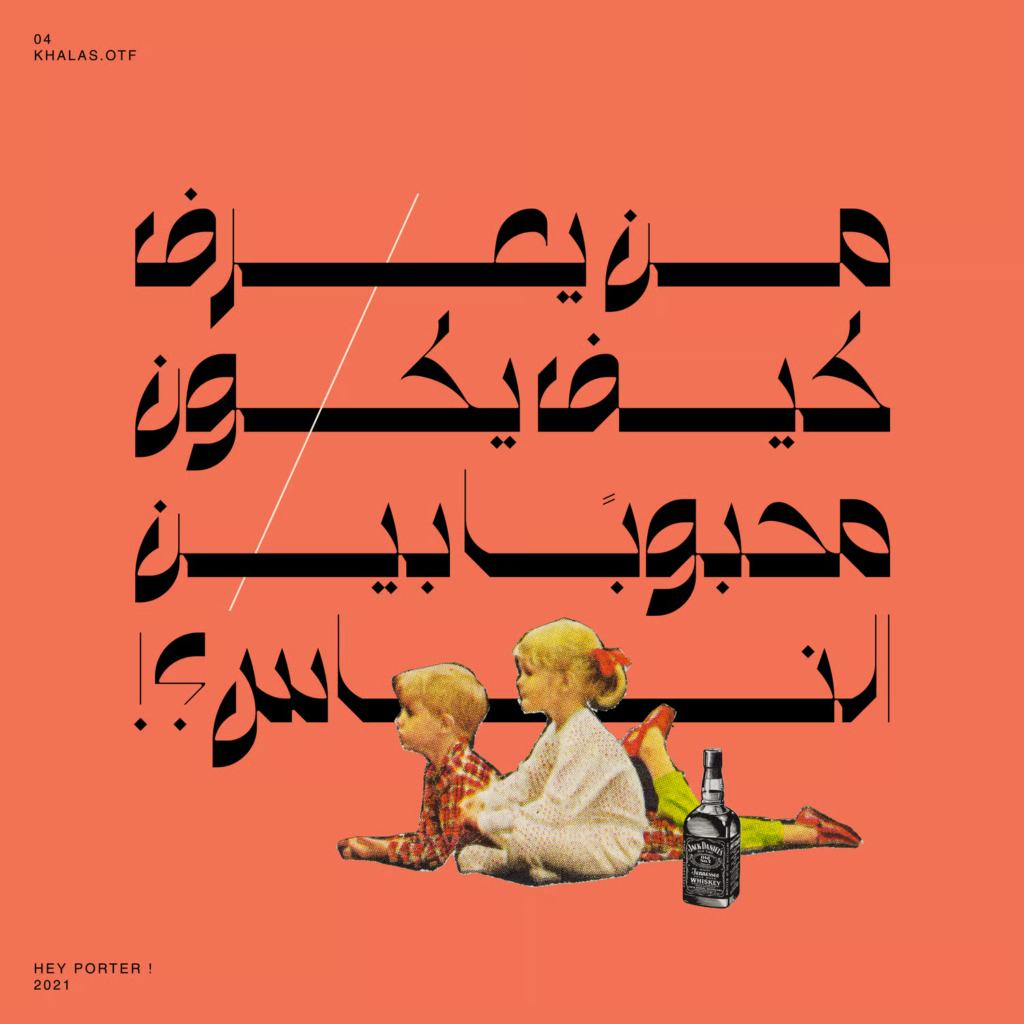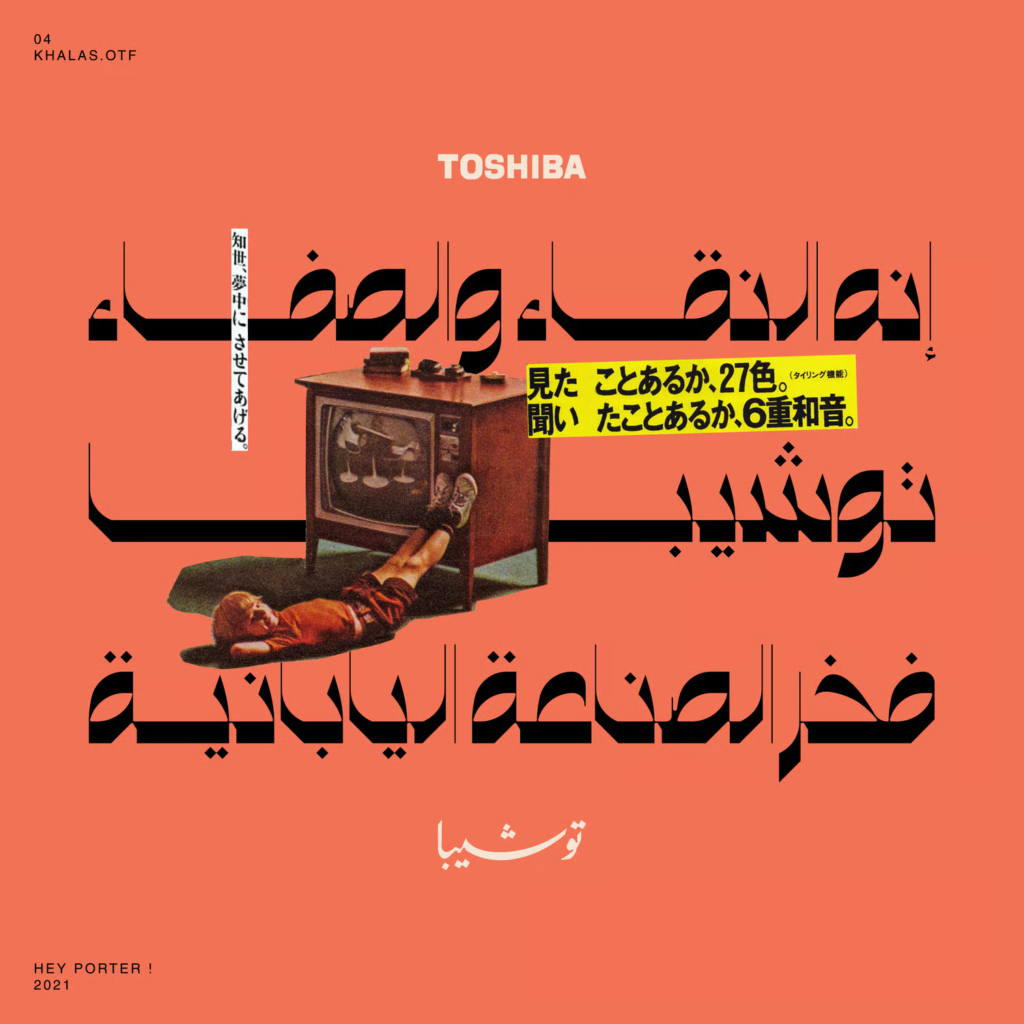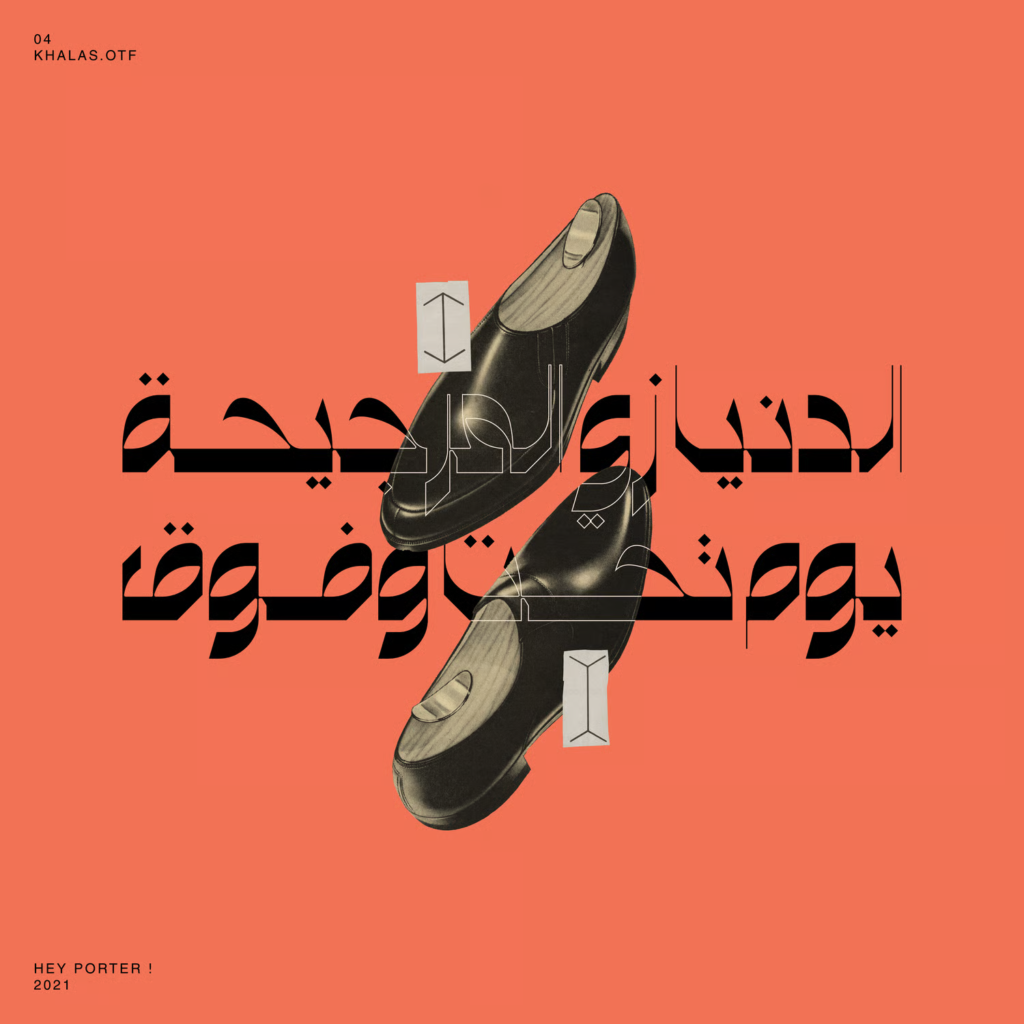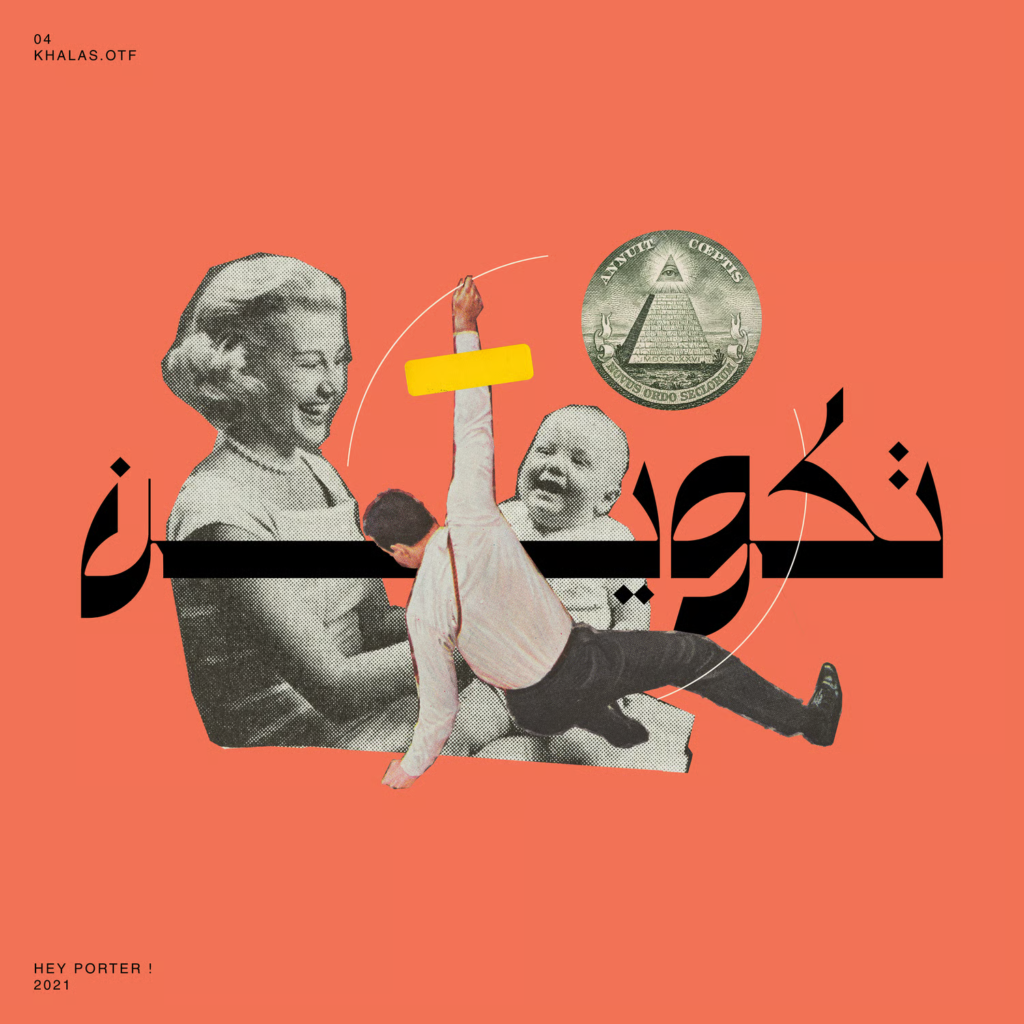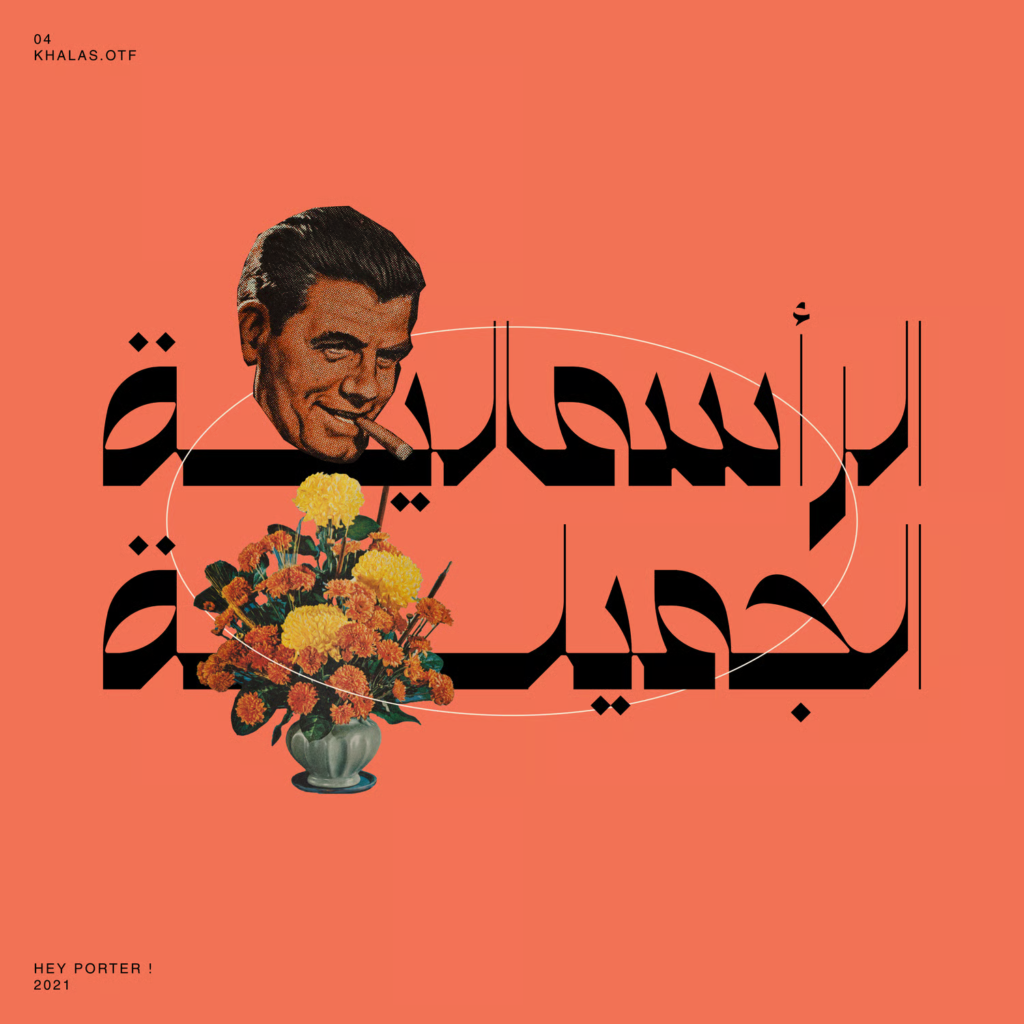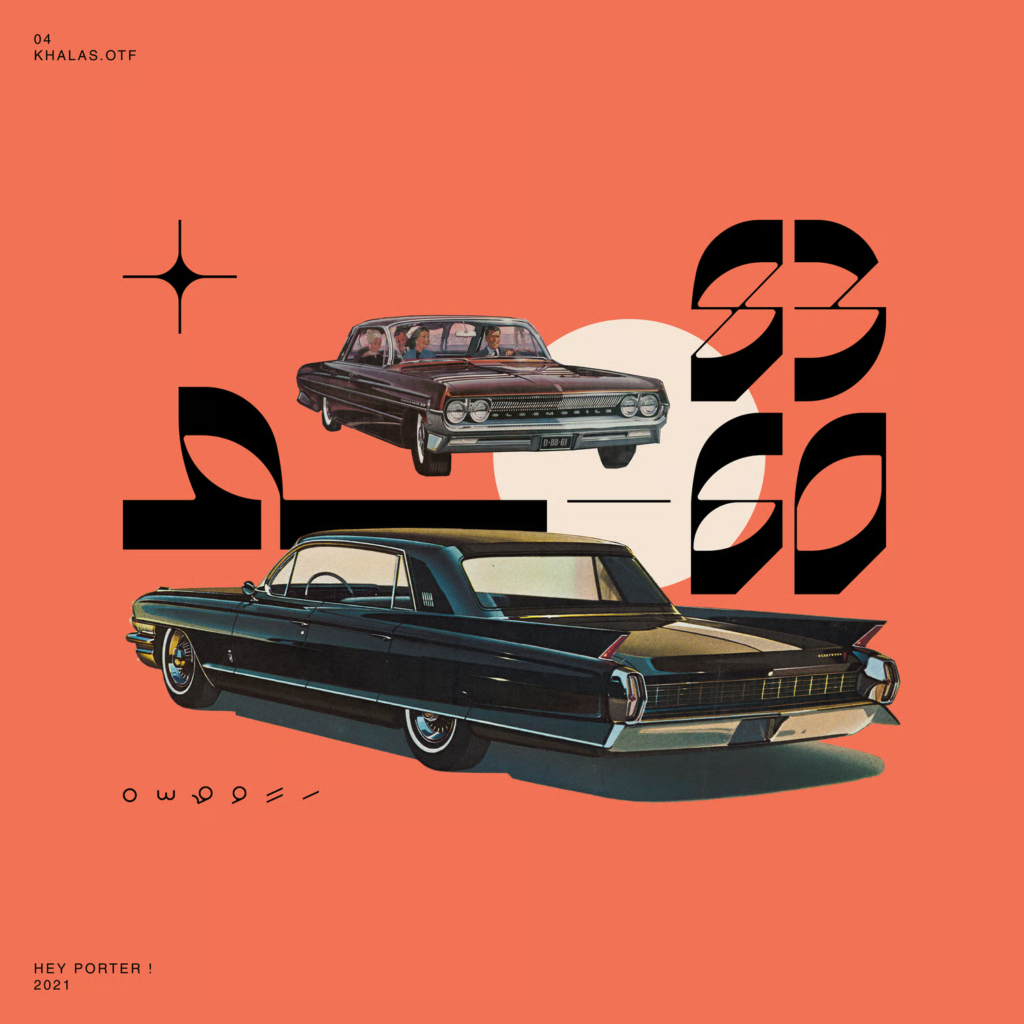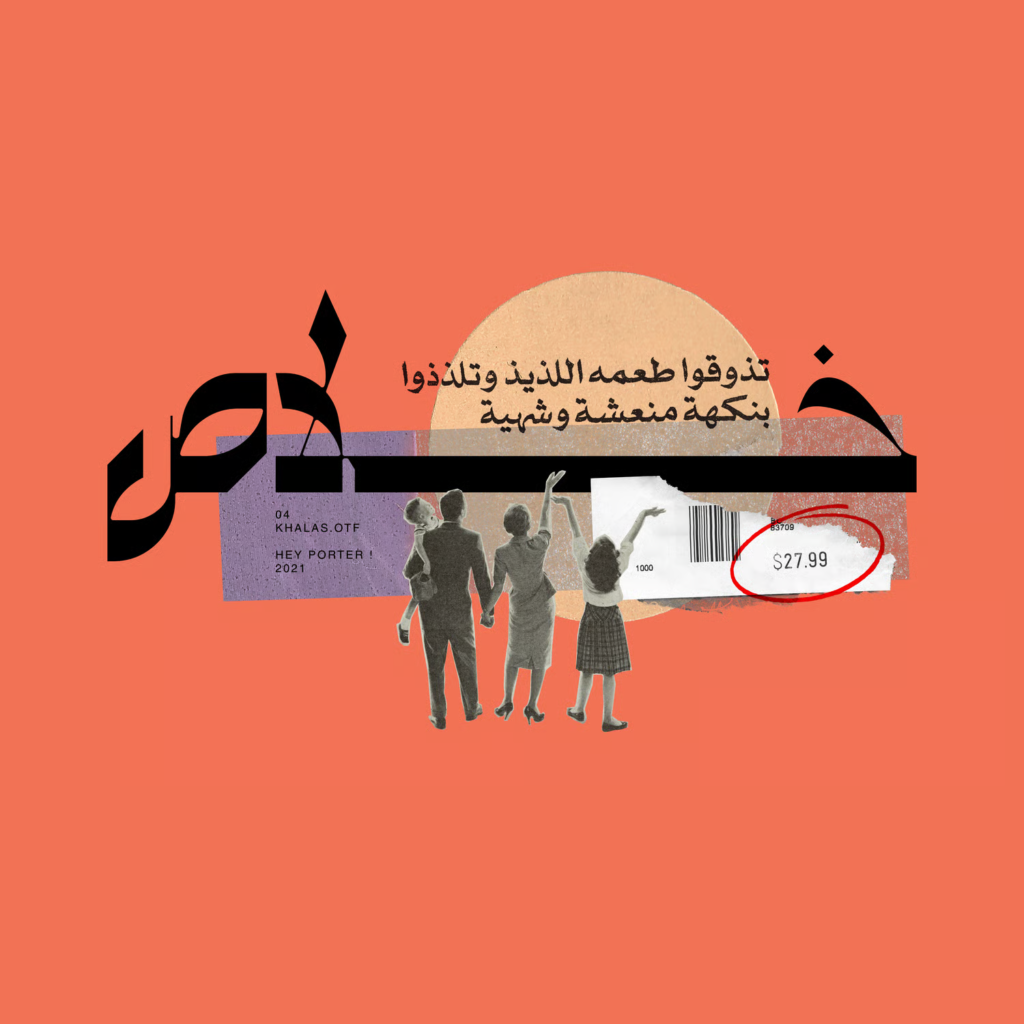
Khalas Arabic Font
Download Khushal, a striking Arabic display font with high contrast and sharp, expressive strokes inspired by the precision of a finely sharpened squirrel-hair calligraphy pen—perfect for logos, branding, headlines, and posters (0.958 MB). OTF format with PNG and JPG previews.
Khushal is a masterfully crafted typeface that captures the authentic spirit of traditional calligraphy tools while delivering a thoroughly modern aesthetic. With its high contrast between thick and thin strokes and razor-sharp edges reminiscent of a perfectly sharpened squirrel-hair pen, this font brings dramatic elegance and handcrafted authenticity to contemporary design.
Design Characteristics:
- High-contrast strokes with dramatic thick/thin variation
- Sharp, precise edges from “sharpened squirrel-hair” inspiration
- Expressive, calligraphic character
- Modern display quality with traditional soul
- Distinctive, memorable appearance
Arabic Script:
- Complete Arabic character set
- Full support for diacritics and marks
- Proper character connections and positioning
- Consistent high-contrast styling across all letters
- Optimized for display sizes and headlines
- Logos: Create stunning, memorable brand identities
- Branding Projects: Cohesive identities with dramatic flair
- Headlines: Bold, attention-grabbing statements
- Posters: Eye-catching promotional materials
- Packaging: Premium product presentation
- Editorial Design: Fashion and lifestyle publications
- Signage: High-impact displays
- Social Media: Visually striking content
- Advertising: Campaigns that demand attention
- Dramatic Contrast: High-impact visual presence
- Calligraphic Soul: Authentic handcrafted feel
- Modern Appeal: Contemporary display aesthetic
- Professional Quality: High-caliber font for serious brands
- Versatile Impact: Perfect for logos, headlines, and more
Key Features of Khushal Font:
- High-contrast Arabic display design
- Sharp, expressive strokes from calligraphy pen inspiration
- Complete Arabic character set
- Modern, attractive aesthetic
- Perfect for logos, branding, headlines, and posters
- Anyone seeking dramatic, calligraphic Arabic typography
KHALAS! is a fresh out of the knife sharpener, high contrast contemporary arabic display font, perfect for logos, branding projects, headlines and posters.